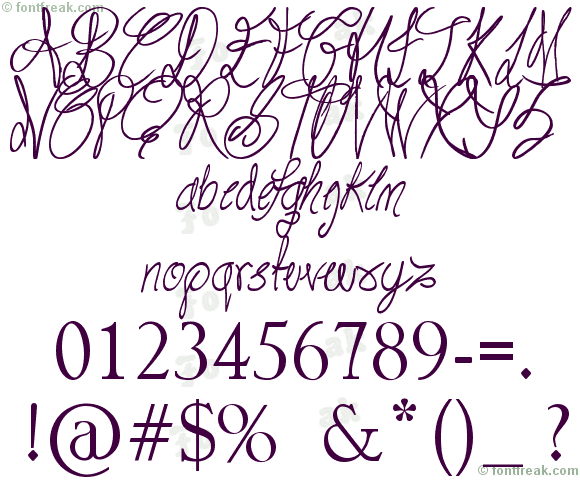
Road Trip
About Road Trip
The Road Trip font, designed by Jonathan S. Harris, is a captivating handwritten typeface that captures the essence of adventure and spontaneity. With its playful strokes and informal elegance, this font falls into the category of decorative scripts, making it perfect for projects that aim to convey a sense of freedom and exploration. The font features a medium stroke weight with subtle variations that add character, while the spacing between letters is well-balanced, ensuring readability without sacrificing style. Its whimsical curves and loops give it a unique flair, making it stand out in any design.
Ideal use cases for the Road Trip font include travel brochures, where it can evoke the thrill of new adventures; wedding invitations, providing a touch of personal charm; and restaurant menus, where it can enhance the theme of a laid-back, casual dining experience. Additionally, this font is an excellent choice for social media graphics aimed at travel enthusiasts or lifestyle bloggers, as it adds a friendly, inviting touch to any content. Graphic designers, content creators, and small business owners will find this font particularly appealing, as it can easily complement a variety of branding efforts.
What sets the Road Trip font apart is its ability to convey a sense of warmth and personality while remaining versatile enough for diverse applications. Whether you're crafting a heartfelt invitation or a vibrant advertisement, this font's unique flair will help capture the attention of your audience. For those looking to add a touch of adventure to their designs, the Road Trip font free download offers an accessible way to infuse creativity into any project.